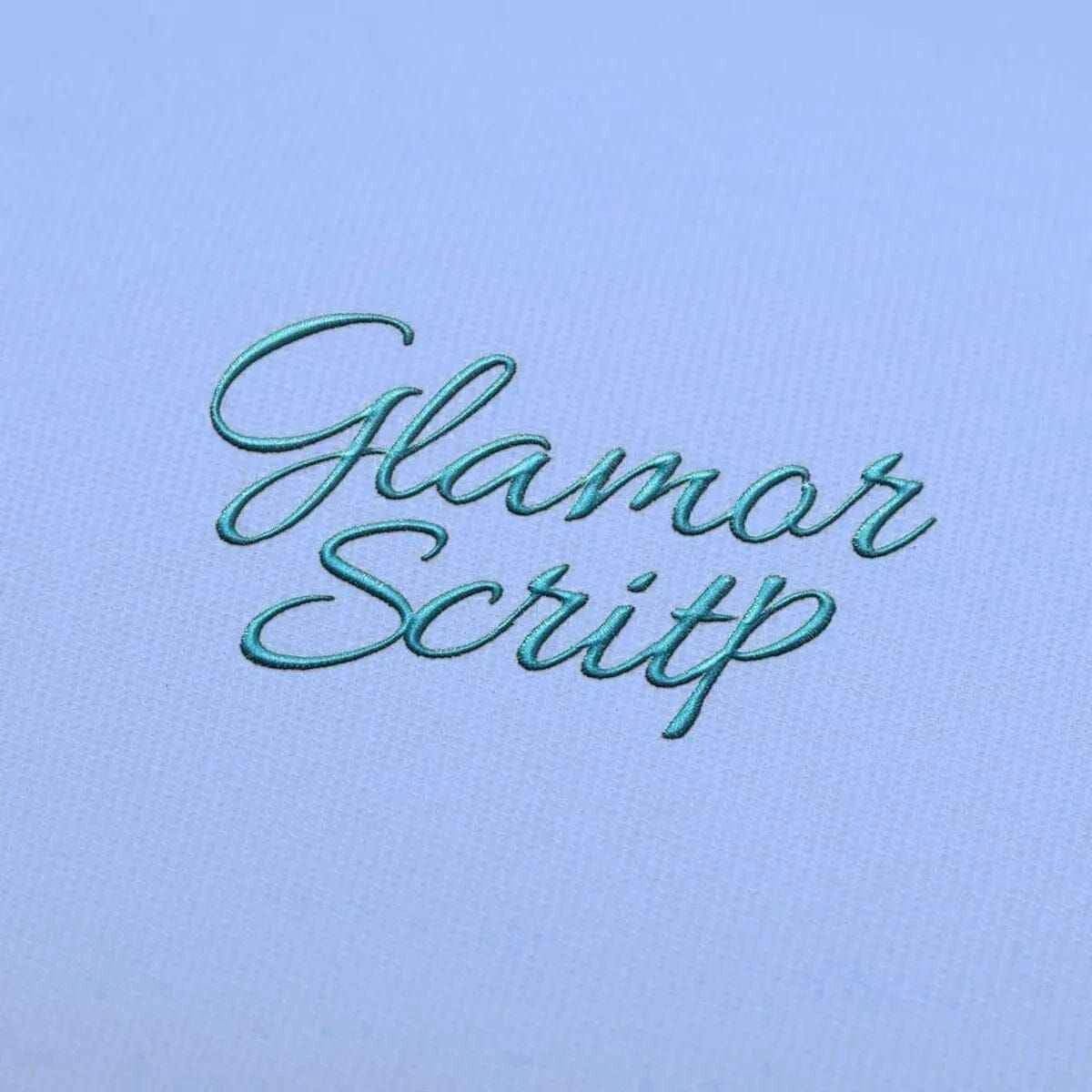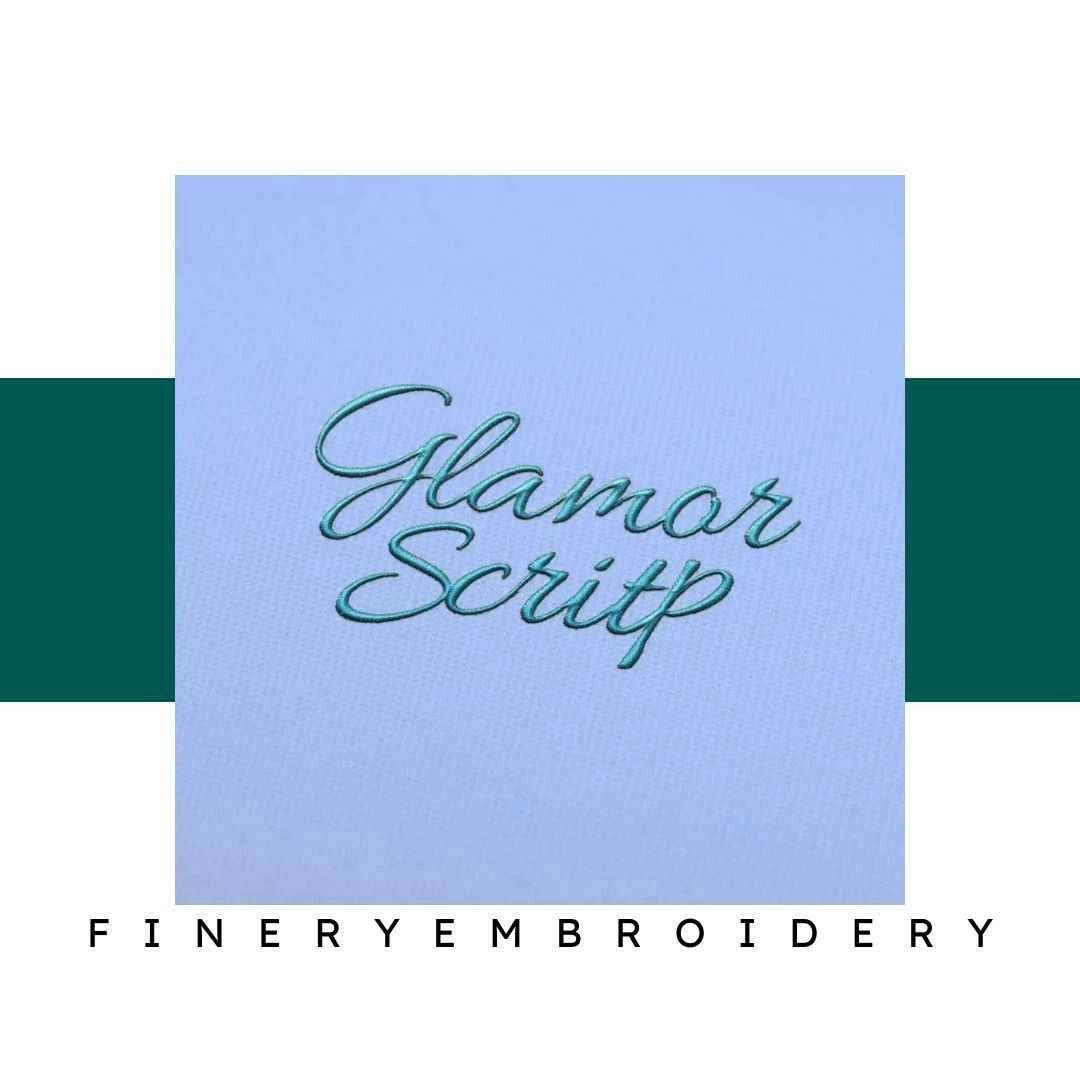
Unleash Your Creativity with the Glamor Script Embroidery Alphabet Font Set – the perfect blend of elegance and versatility for all your embroidery projects!
Introducing the Glamor Script Embroidery Alphabet Font Set, designed to transform your creative endeavors into stunning works of art. This font set brings a touch of sophistication, ensuring that every project stands out with a flourish. Each character has been meticulously crafted, offering a delightful experience for both beginners and seasoned embroiderers alike.
Why You'll Love This Design
The Glamor Script Font Set is more than just letters; it’s a celebration of style and finesse. You’ll adore how each character flows seamlessly into the next, creating an elegant visual narrative that enhances your embroidery projects. Perfect for monograms, quotes, or personalized gifts, this font set is sure to impress.
Creative Applications
Versatility is at the heart of the Glamor Script Font Set. Whether you’re personalizing home decor, crafting unique apparel, or designing one-of-a-kind gifts, this font set adapts beautifully to any project. From wedding invitations to cozy throw pillows, the possibilities are endless with the refined aesthetics of this elegant font.
Digitized for Passionate Embroiderers
At Finery Embroidery, we understand the passion that drives your creativity. That’s why we’ve dedicated ourselves to digitizing the Glamor Script Font Set with precision and care. Each character is optimized for ease of use, ensuring that your embroidery journey is as enjoyable as the finished product is stunning. We believe that every design should be an expression of your unique style.
- Perfect for personalizing gifts, home decor, and much more!
- Digitized with seamless transitions for a flawless finish every time.